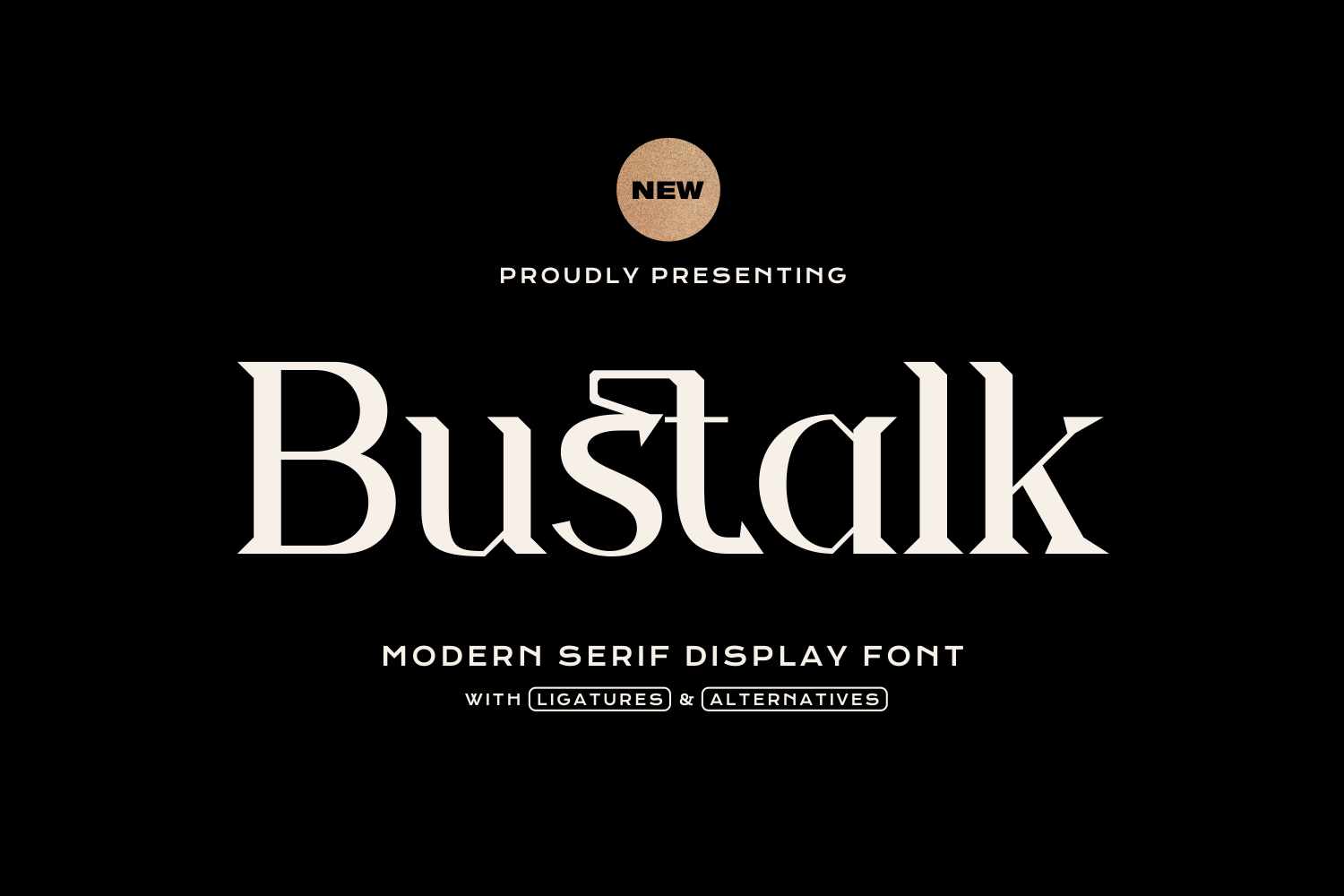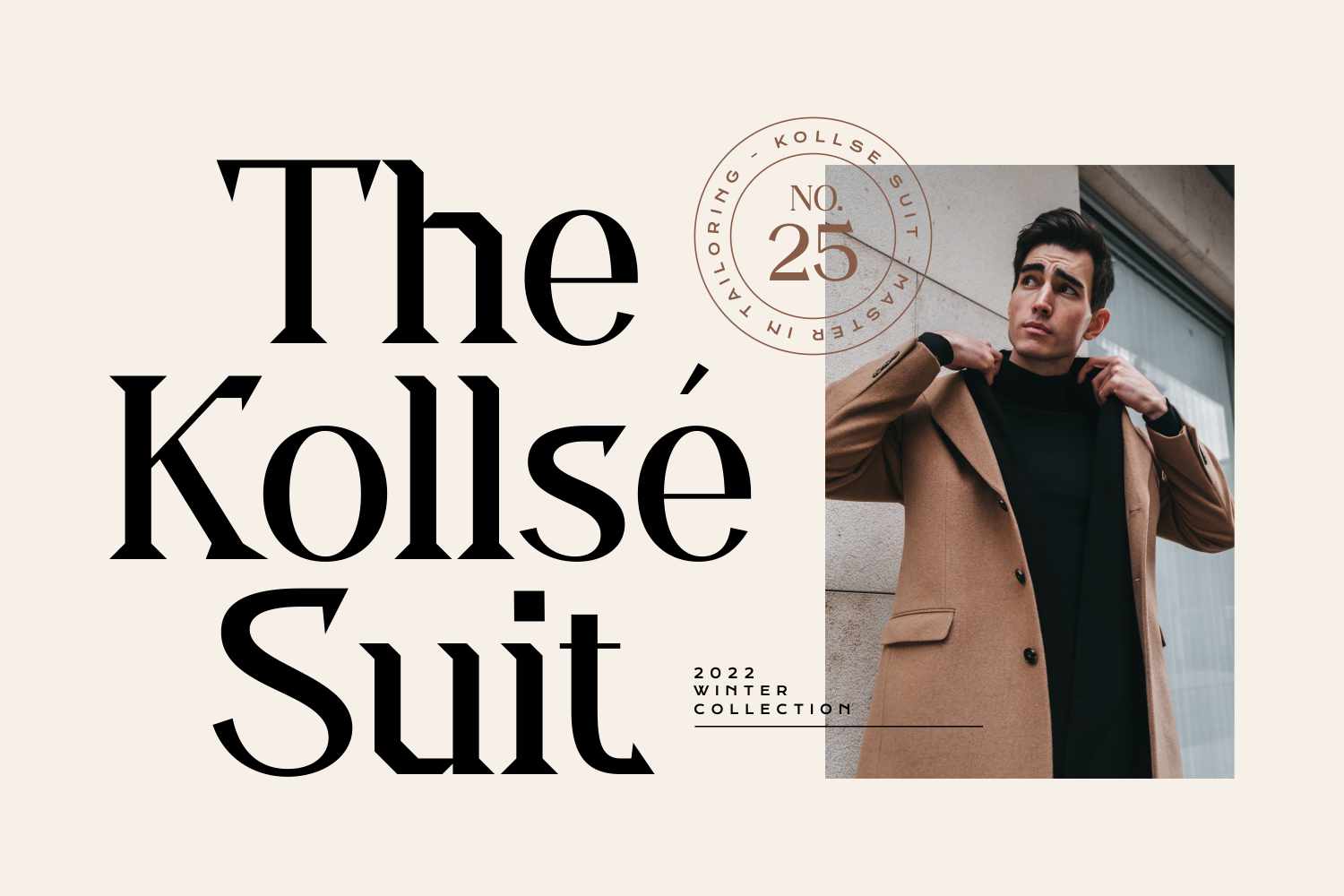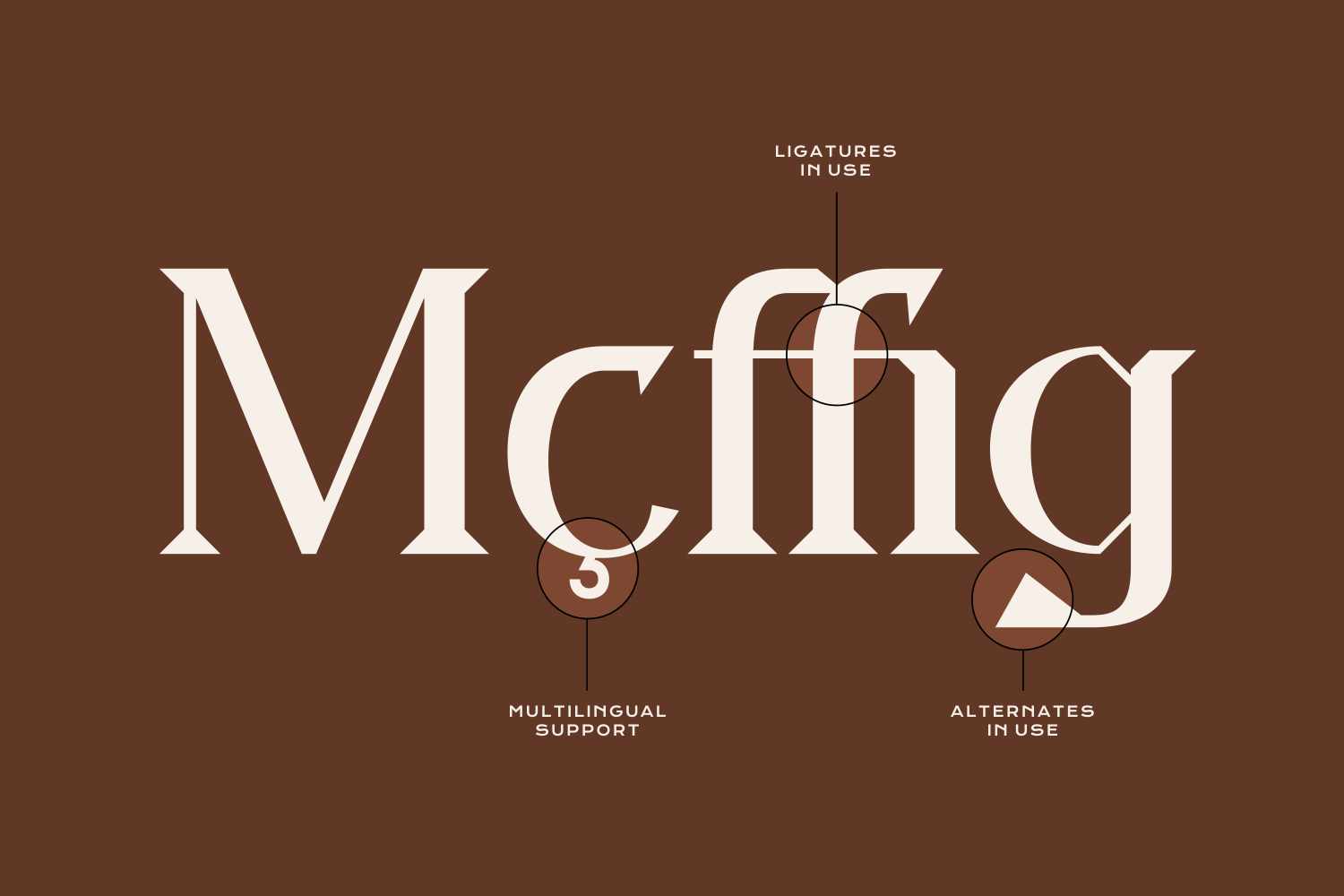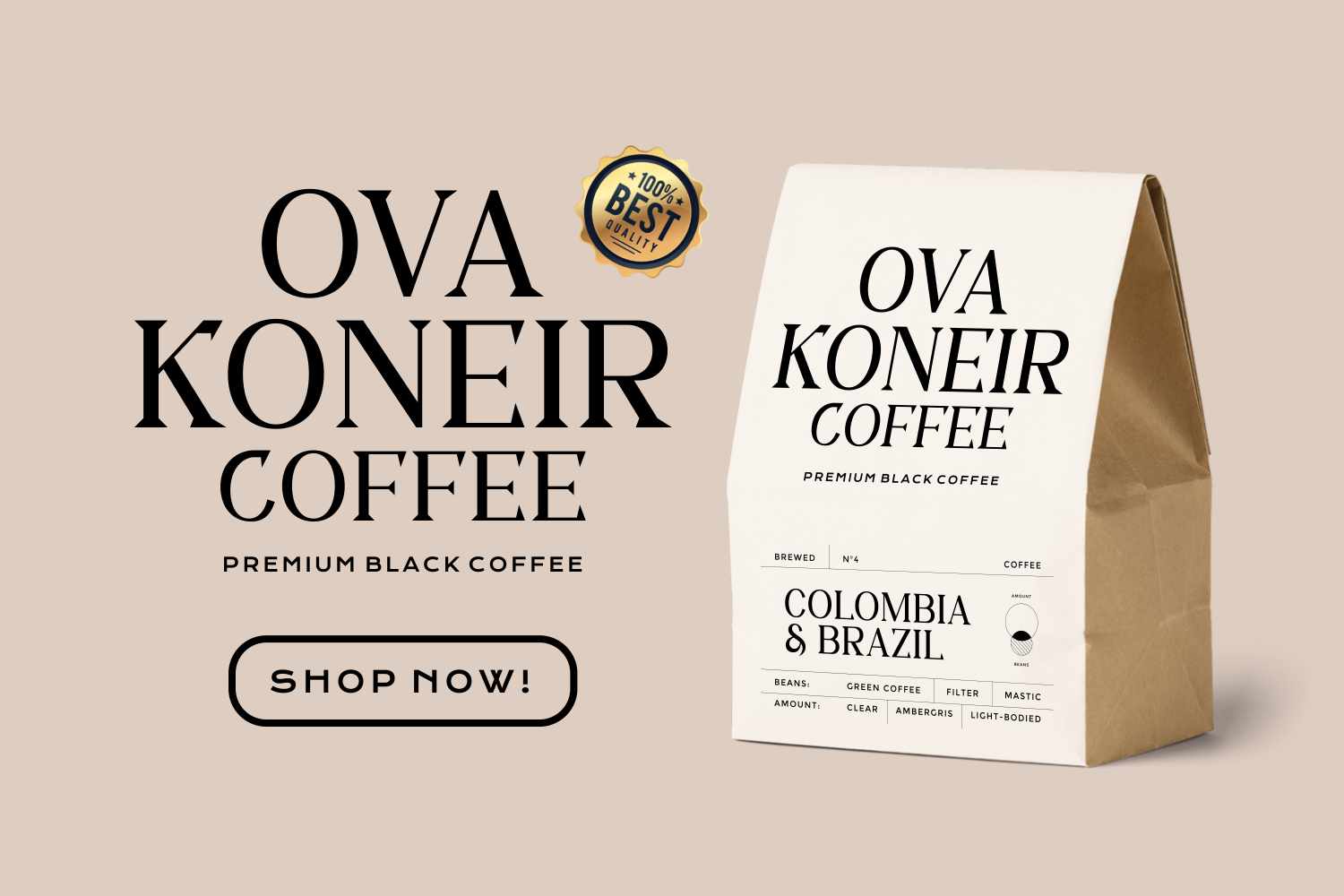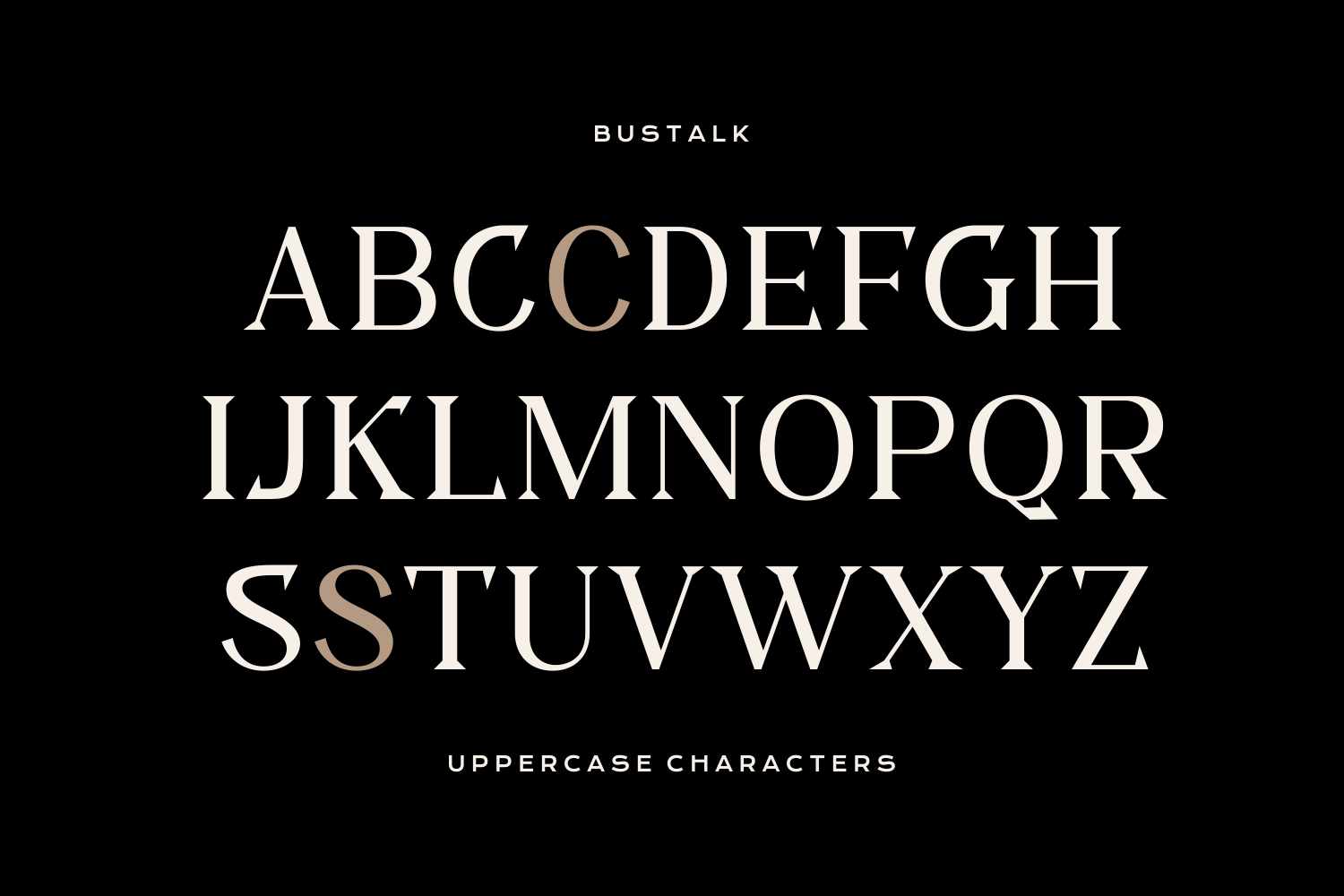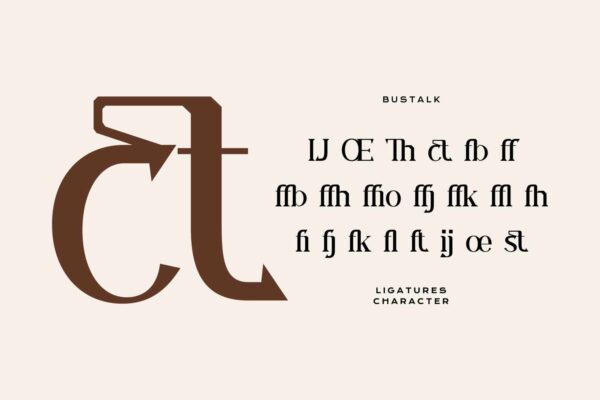
Bustalk
Bustalk is a modern serif display font that blends elegance and innovation through sharp serifs and striking ligature details. With its contemporary aesthetic, Bustalk is designed to make bold statements in editorial layouts, fashion branding, and luxury product packaging. The font stands out with unique alternates and multilingual support, giving designers creative control across a variety of applications.
Perfect for headlines and large-format typography, Bustalk offers both high contrast and sophisticated character shapes that evoke a sense of prestige and professionalism. Whether you’re working on high-end advertising or magazine covers, Bustalk is crafted to elevate visual storytelling with refined typographic expression.